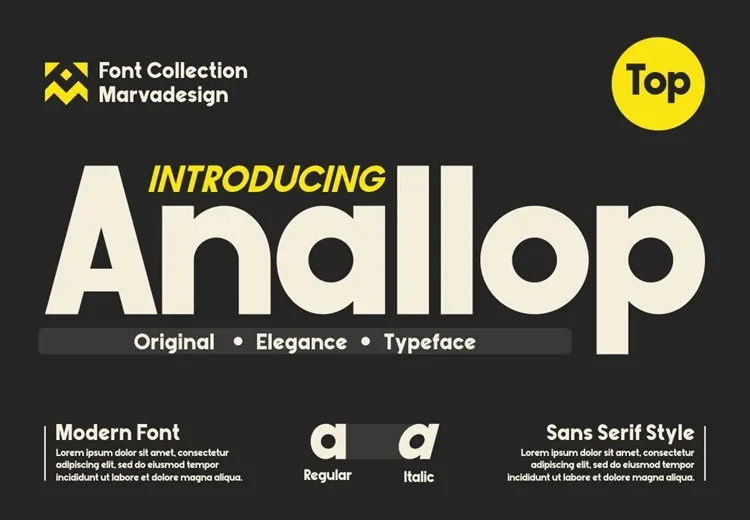
Anallop Font
Anallop is an original, bold, and confident sans-serif font designed to make a statement. Its strong, clean lines and dynamic presence make it perfect for a wide range of design projects, from branding to marketing materials, web design, and beyond. Whether you are working on a logo, headline, or poster, Anallop brings a sense of authority and modernity to any design.
With its eye-catching style and versatility, Anallop is an excellent choice for both print and digital projects, ensuring that your work stands out and grabs attention in any context.